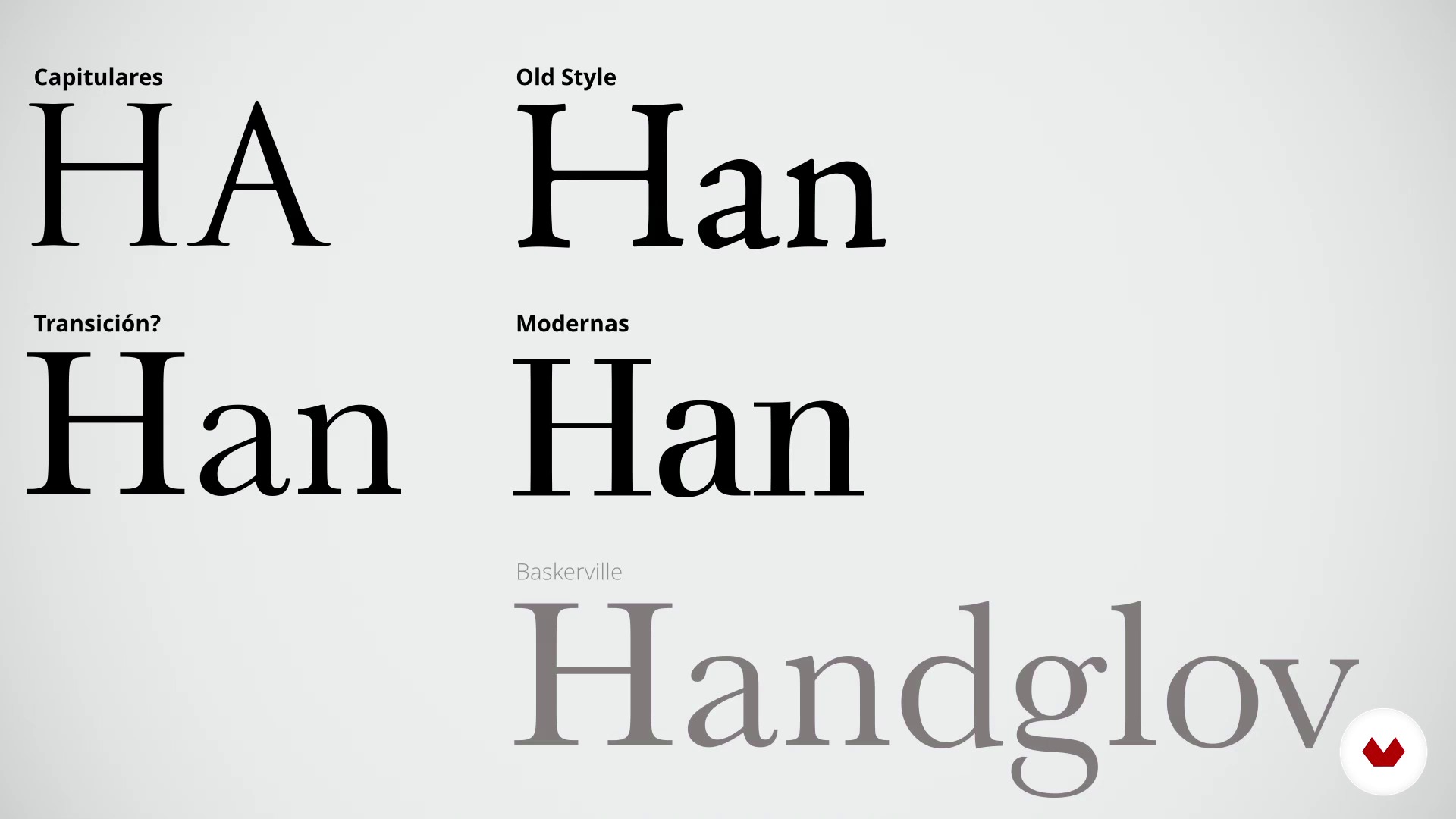
How to Choose Fonts
How should we look at the letters
About the video: How should we look at the letters
“In this lesson I explain essential things about the letter, such as the contrast, the axis and the eye. We will also see how the letters are classified.”
In this video lesson Enric Jardí addresses the topic: How should we look at the letters, which is part of the Domestika online course: How to Choose Fonts. Discover what each type of font tells us and how to choose the right one for your project.
“How should we look at the letters In this lesson we will begin to see the letter in a different way. It will not be with the classical methods, but we will do it in a very different way. It is my own method, but I think you will be interested. In this part we will begin to see what we should take into account when choosing a letter. In almost all teaching materials on typography it talks about the parts of the letter. I understand that this is part of the material to learn typography, but in reality it is a terminology that is not used much. In fact, it changes from book to book, and unless...”